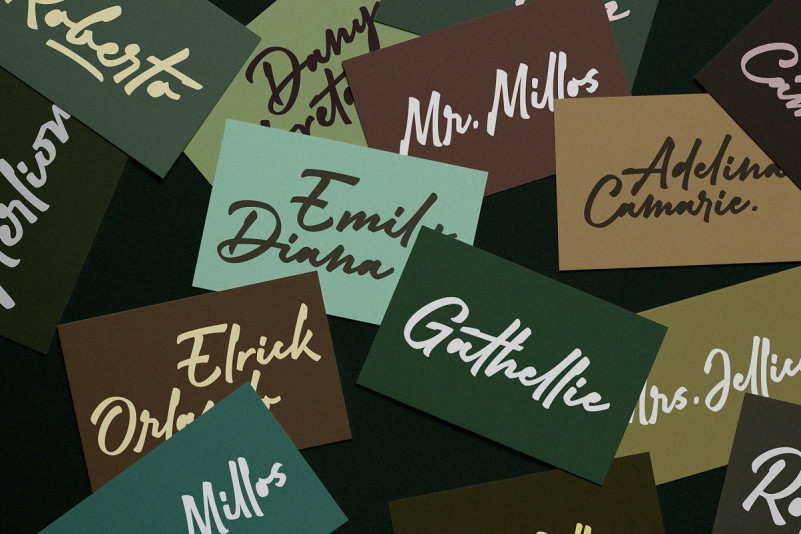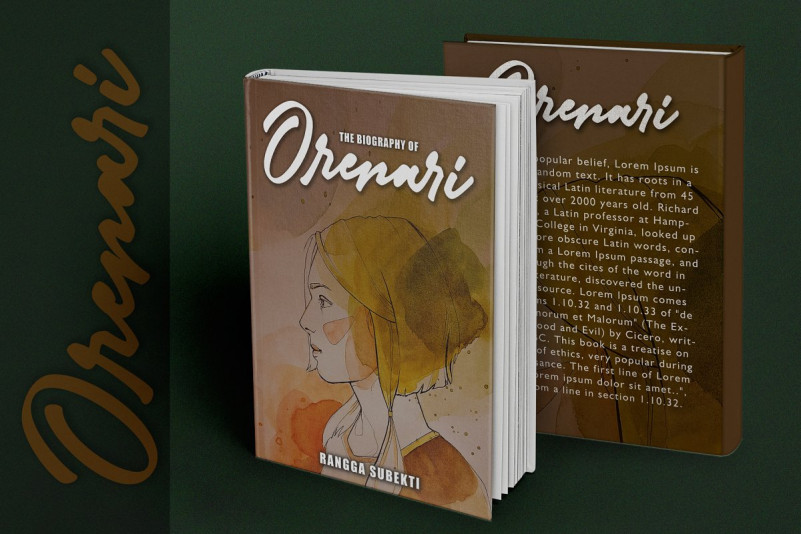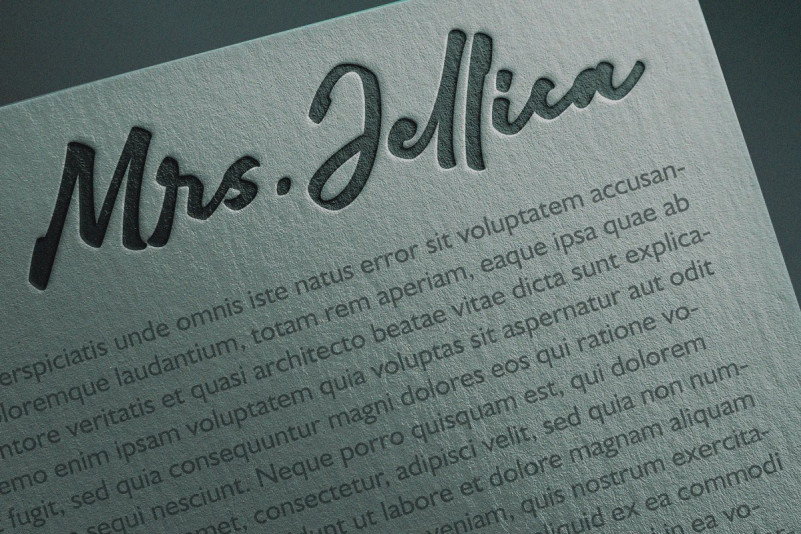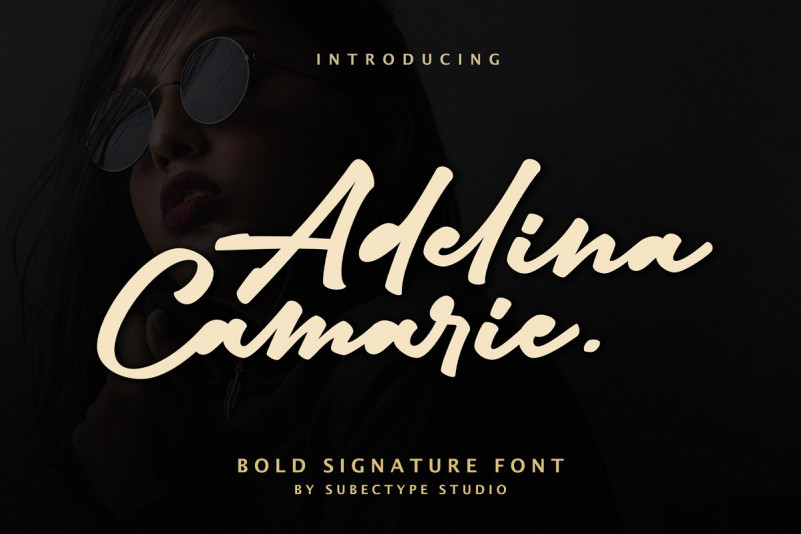
Adelina Camarie Signature Font
Introducing the new bold signature, Adelina Camarie Font! It’s a Bold Signature Font script with a natural & stylish flow. This collection of scripts is perfect for personal branding. It was made with the intention to be used for your personal branding. But, this works well for many applications. Everything from personal branding, photography signature, advertising could benefit from this collection of this bold signature fonts.